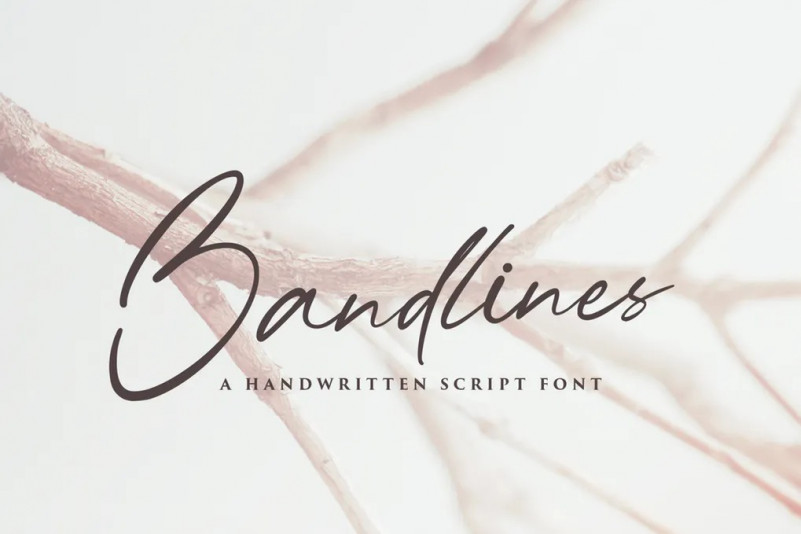
Bandlines Font
Bandlines is attractive handwritten script, ideal for use in projects that need an organic and natural style. This font is great for logo, logotype, branding,wedding, fashion, label, book cover, t-shirt, instagram post, and other, and can add an elegant and classy look to your work.